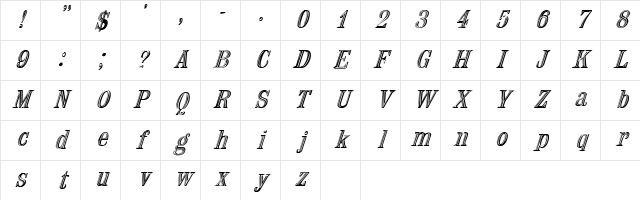
Powell Italic
Design Context for Powell
Powell is a composed and adaptable typeface that performs quietly and consistently across a wide range of design contexts. The slanted form adds forward momentum and visual energy.
Pro Tip: Use Powell for emphasis, pull quotes, and subheadings where its slanted energy can add rhythm to the layout.